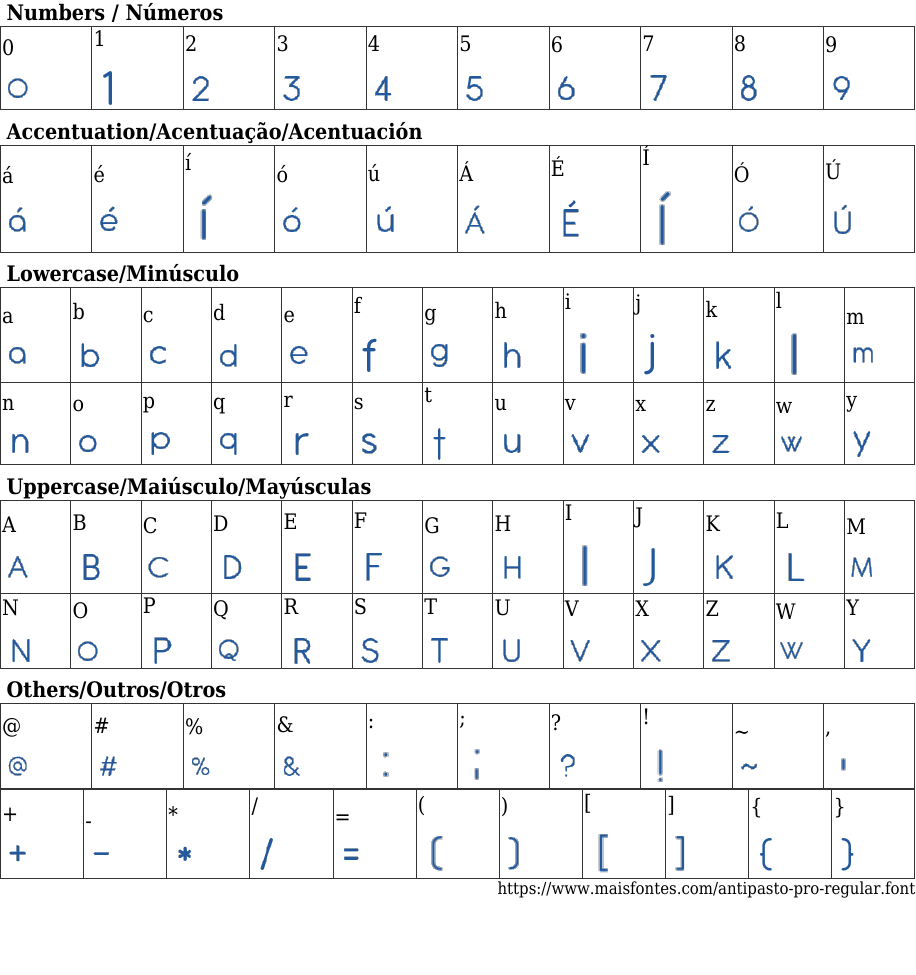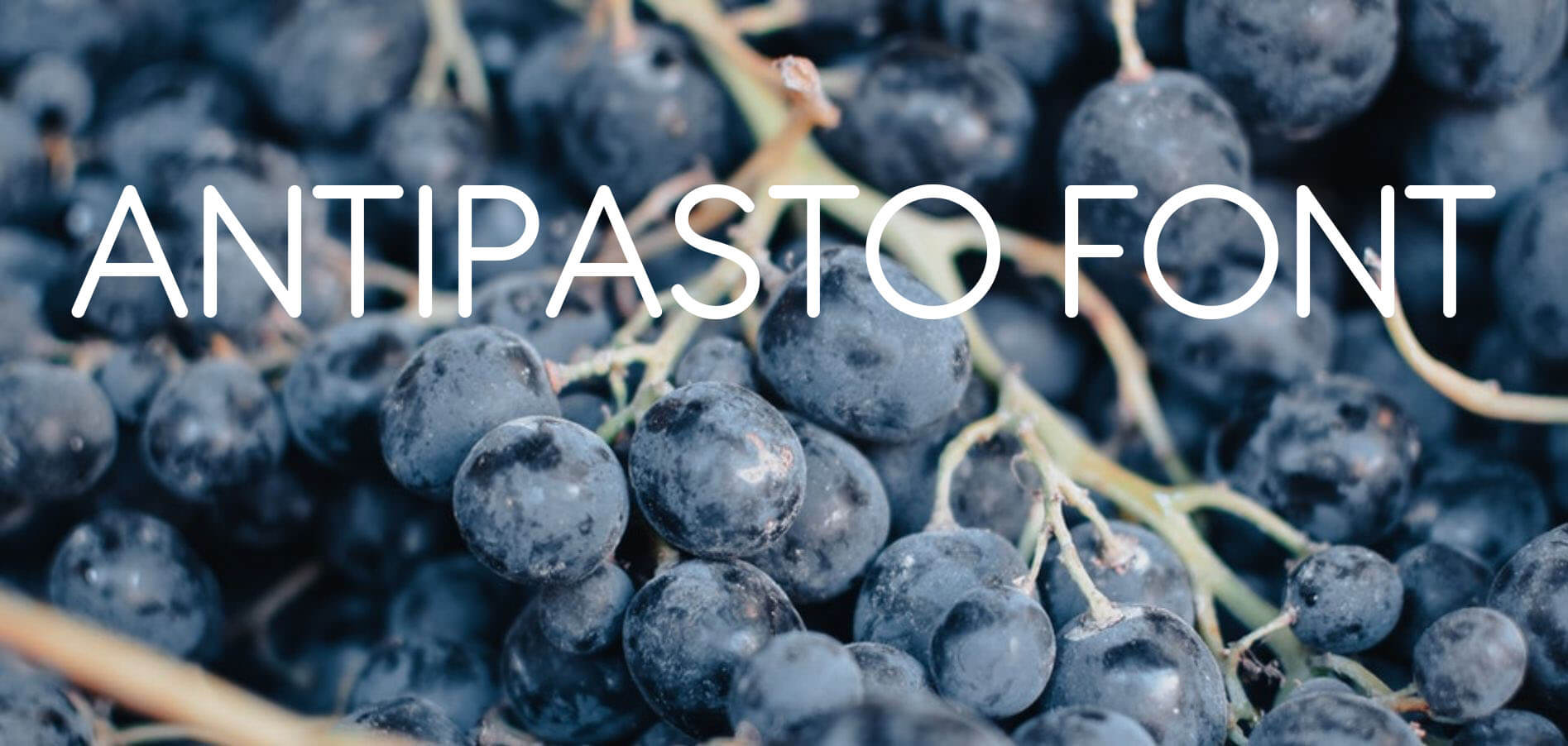
Antipasto Pro Regular Font Download . The antipasto pro regular font allows you to take your projects to incredible heights. The original family of three weights has been. Antipasto is a geometric sans serif font designed by cosimo lorenzo pancini. Antipasto pro is geometric sans serif font created by cosimo lorenzo pancini. Check and download for free. The original family of three weights has been. Download and install the antipasto font by zetafonts. The antipasto font has been. Antipasto is a geometric sans serif font designed by cosimo lorenzo pancini. Download antipasto pro font family · free for personal use · this trial font is totally free for noncommercial uses. The initial family of three weights was redesigned and enlarged in 2017 with antipasto pro that now. The original family of three weights has been revised and expanded in 2017 with antipasto pro that now includes cyrillic and.
Check and download for free. The original family of three weights has been. Antipasto pro is geometric sans serif font created by cosimo lorenzo pancini. The antipasto font has been. The antipasto pro regular font allows you to take your projects to incredible heights. Antipasto is a geometric sans serif font designed by cosimo lorenzo pancini. Download antipasto pro font family · free for personal use · this trial font is totally free for noncommercial uses. Download and install the antipasto font by zetafonts. The original family of three weights has been revised and expanded in 2017 with antipasto pro that now includes cyrillic and. The initial family of three weights was redesigned and enlarged in 2017 with antipasto pro that now.
Antipasto Pro Regular Font Download Antipasto pro is geometric sans serif font created by cosimo lorenzo pancini. The antipasto font has been. The original family of three weights has been. The antipasto pro regular font allows you to take your projects to incredible heights. Antipasto is a geometric sans serif font designed by cosimo lorenzo pancini. Check and download for free. Download antipasto pro font family · free for personal use · this trial font is totally free for noncommercial uses. The original family of three weights has been. Download and install the antipasto font by zetafonts. Antipasto pro is geometric sans serif font created by cosimo lorenzo pancini. Antipasto is a geometric sans serif font designed by cosimo lorenzo pancini. The original family of three weights has been revised and expanded in 2017 with antipasto pro that now includes cyrillic and. The initial family of three weights was redesigned and enlarged in 2017 with antipasto pro that now.
Antipasto Font Free Download Antipasto Pro Regular Font Download Antipasto is a geometric sans serif font designed by cosimo lorenzo pancini. The initial family of three weights was redesigned and enlarged in 2017 with antipasto pro that now. Antipasto pro is geometric sans serif font created by cosimo lorenzo pancini. Download and install the antipasto font by zetafonts. The original family of three weights has been. The original family. Antipasto Pro Regular Font Download.
Download free Antipasto Pro DemiBold Regular font Zetafonts Antipasto Pro Regular Font Download Antipasto is a geometric sans serif font designed by cosimo lorenzo pancini. Download antipasto pro font family · free for personal use · this trial font is totally free for noncommercial uses. Check and download for free. The antipasto pro regular font allows you to take your projects to incredible heights. The antipasto font has been. The initial family of. Antipasto Pro Regular Font Download.
Antipasto Pro font free download • Antipasto Pro Regular Font Download Antipasto pro is geometric sans serif font created by cosimo lorenzo pancini. The original family of three weights has been. Check and download for free. Antipasto is a geometric sans serif font designed by cosimo lorenzo pancini. The original family of three weights has been revised and expanded in 2017 with antipasto pro that now includes cyrillic and. The original. Antipasto Pro Regular Font Download.
Antipasto Font Download Fonts4Free Antipasto Pro Regular Font Download Antipasto is a geometric sans serif font designed by cosimo lorenzo pancini. Check and download for free. The antipasto font has been. Download antipasto pro font family · free for personal use · this trial font is totally free for noncommercial uses. Download and install the antipasto font by zetafonts. The original family of three weights has been. The antipasto. Antipasto Pro Regular Font Download.
Antipasto Font Free Download Antipasto Pro Regular Font Download The original family of three weights has been. Antipasto pro is geometric sans serif font created by cosimo lorenzo pancini. Antipasto is a geometric sans serif font designed by cosimo lorenzo pancini. Antipasto is a geometric sans serif font designed by cosimo lorenzo pancini. The original family of three weights has been. Download and install the antipasto font by zetafonts.. Antipasto Pro Regular Font Download.
Download free Antipasto Pro DemiBold Regular font Zetafonts Antipasto Pro Regular Font Download Check and download for free. Antipasto is a geometric sans serif font designed by cosimo lorenzo pancini. Download and install the antipasto font by zetafonts. The original family of three weights has been revised and expanded in 2017 with antipasto pro that now includes cyrillic and. Antipasto is a geometric sans serif font designed by cosimo lorenzo pancini. The original. Antipasto Pro Regular Font Download.
Antipasto Regular Download For Free, View Sample Text, Rating And Antipasto Pro Regular Font Download The original family of three weights has been revised and expanded in 2017 with antipasto pro that now includes cyrillic and. The original family of three weights has been. The initial family of three weights was redesigned and enlarged in 2017 with antipasto pro that now. The original family of three weights has been. Download antipasto pro font family ·. Antipasto Pro Regular Font Download.
Antipasto Pro Font Free Download Antipasto Pro Regular Font Download The antipasto pro regular font allows you to take your projects to incredible heights. Download antipasto pro font family · free for personal use · this trial font is totally free for noncommercial uses. Download and install the antipasto font by zetafonts. The initial family of three weights was redesigned and enlarged in 2017 with antipasto pro that now. The. Antipasto Pro Regular Font Download.